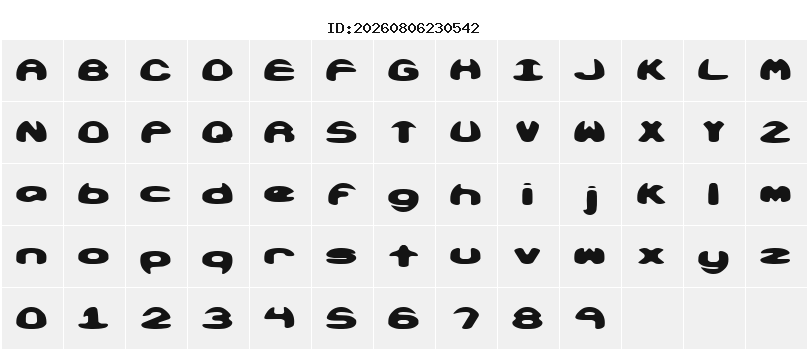
• Font Name: Obloquy Solid BRK
• Full Font Name: Obloquy Solid BRK
About Obloquy Solid BRK.ttf
Obloquy Solid BRK.ttf is a modern, elegant sans-serif font designed for ultimate readability and visual harmony. Perfect for branding, headlines, web design, and print materials.